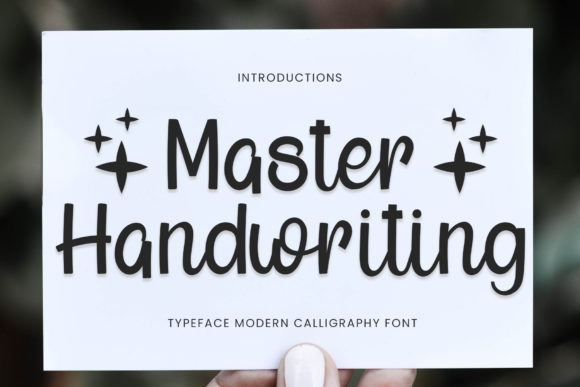
Dive into the world of impeccable penmanship with Master Handwriting Font, a masterpiece that will transform your creative visions into breathtaking realities.
Indulge in the allure of its exquisite script, where each letter dances with graceful curves and elegant flourishes. Master Handwriting is the epitome of beauty and charm, casting a spell over every design it adorns.
Picture the awe-inspiring designs you can create with this font's captivating essence. It's the perfect choice for captivating logos, enchanting invitations, and breathtaking wedding stationery. Master Handwriting will elevate your designs to new heights, leaving an unforgettable mark on your audience.
But its allure doesn't end there. Master Handwriting is a font that speaks to the heart. Its gentle touch and timeless beauty evoke emotions that resonate deep within. Whether you're designing heartwarming love letters or creating whimsical children's books, Master Handwriting will infuse your words with an undeniable charm.
Immerse yourself in the enchanting world of Master Handwriting Font and unlock the boundless possibilities for your creative endeavors. Let its captivating spirit guide you to design masterpieces that leave a lasting impression.